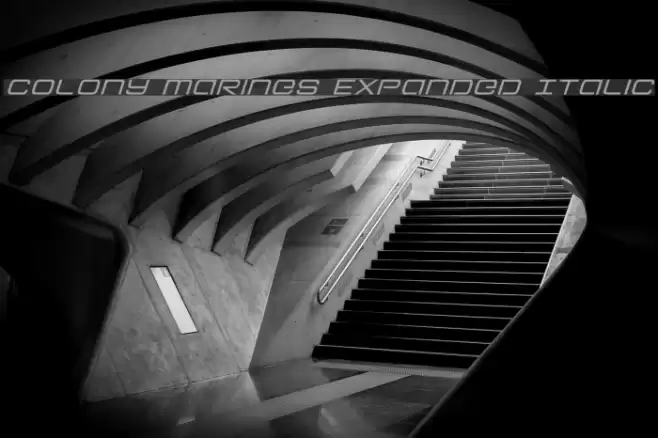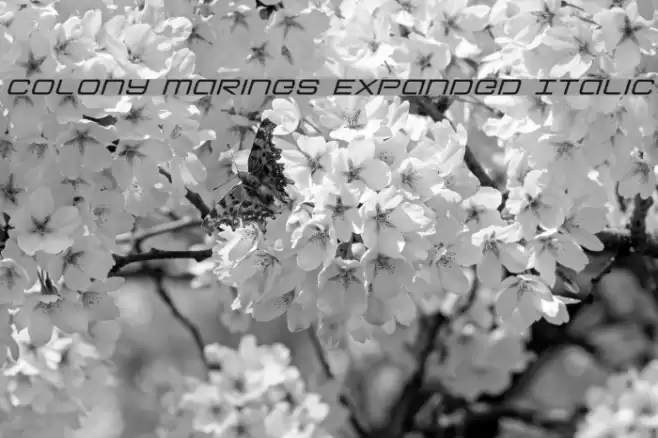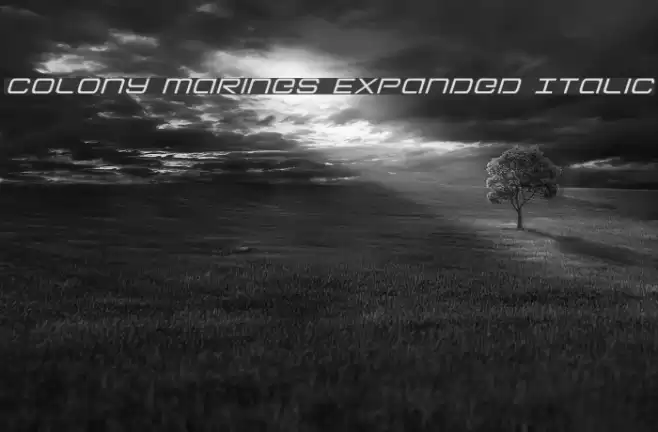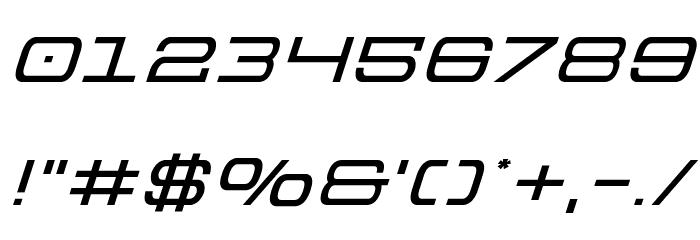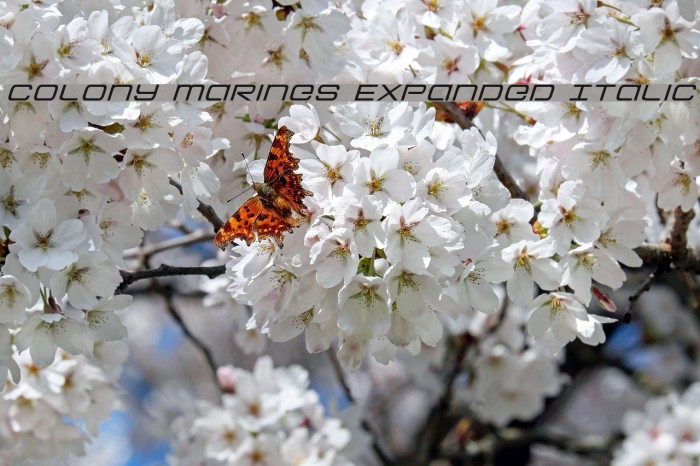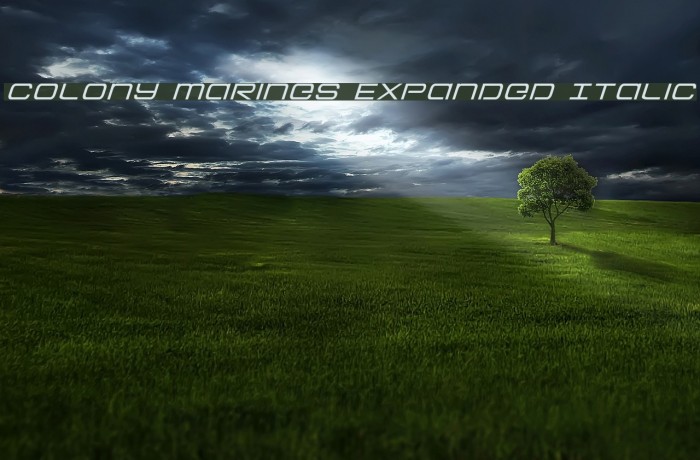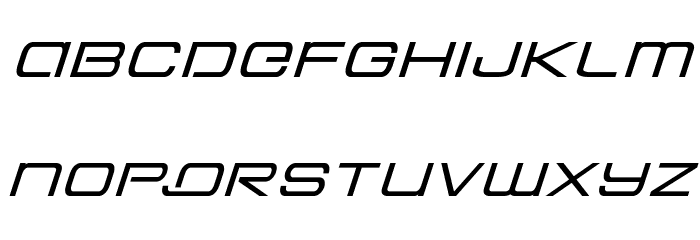
Colony Marines Expanded Italic Font
Colony Marines Expanded Italic Description
This font features a futuristic and sleek design with an expanded and italicized style. The characters have a geometric and angular appearance, giving them a modern and technical feel. The uppercase and lowercase letters maintain a consistent slant, enhancing the italic effect. The numerals and special characters are designed to match the overall aesthetic, providing a cohesive look across all glyphs. The font's expanded width allows for increased readability while maintaining its unique style.
A futuristic, expanded italic font with a geometric and angular design from Sci-fi fonts.
- Proposed Projects: Ideal for technology branding, sci-fi themed projects, video game interfaces, and modern advertising campaigns.
- Use Case: Headlines, Logos, Display text